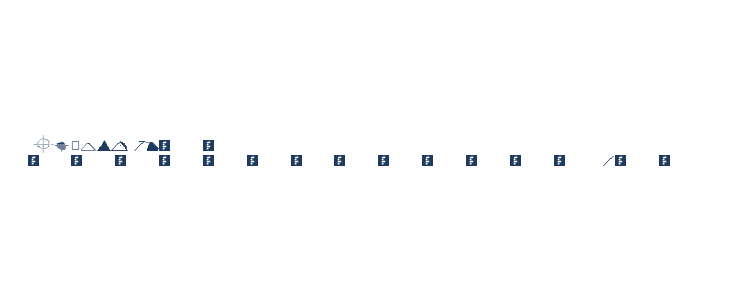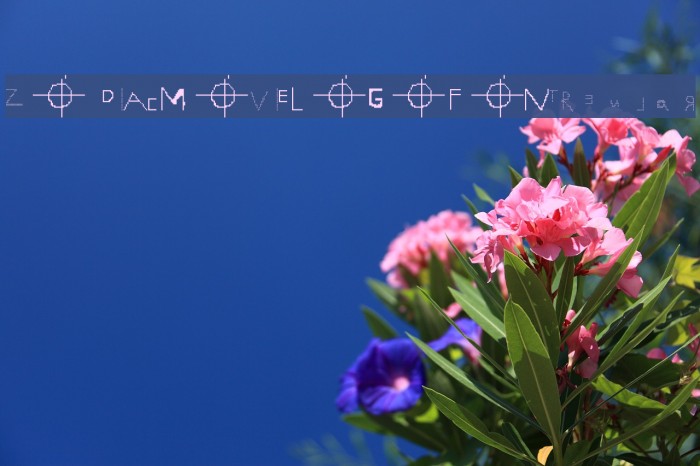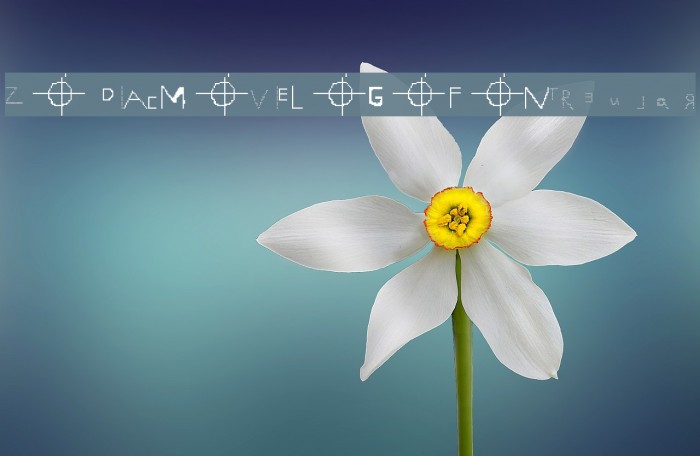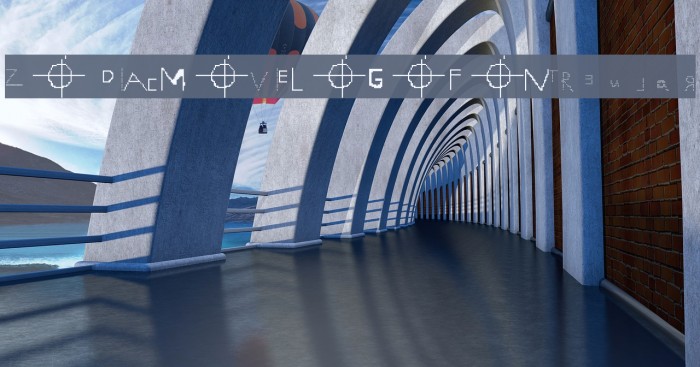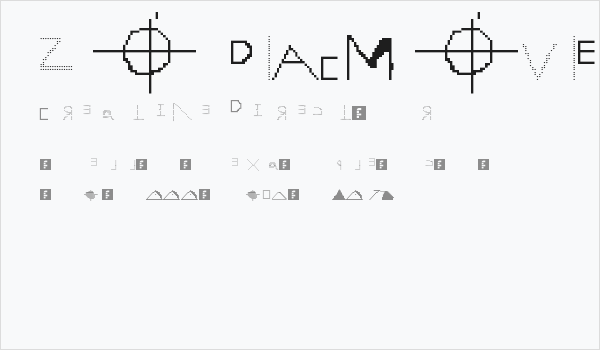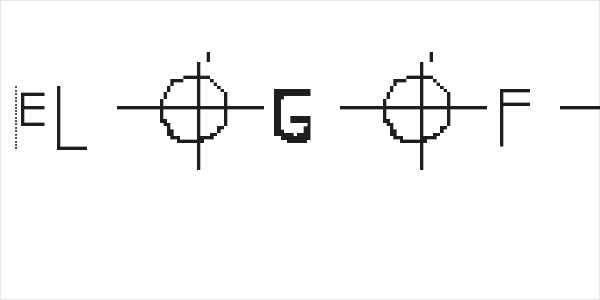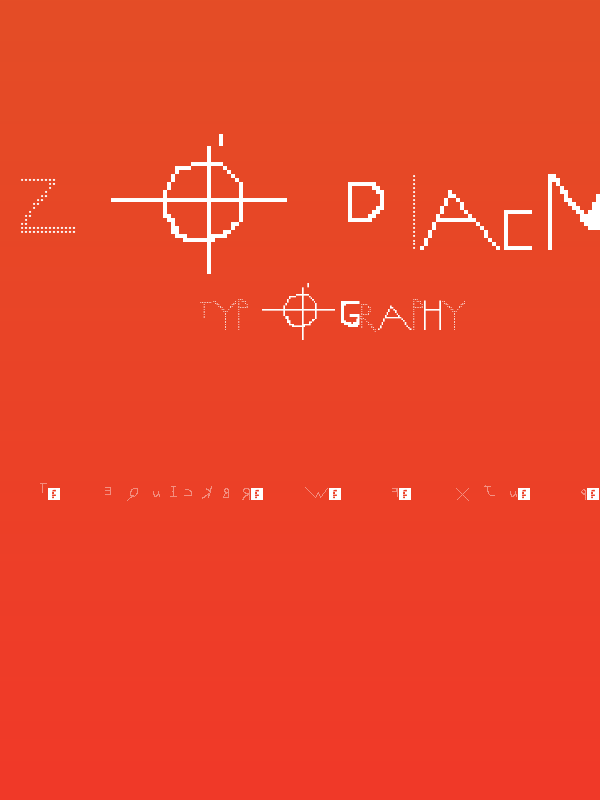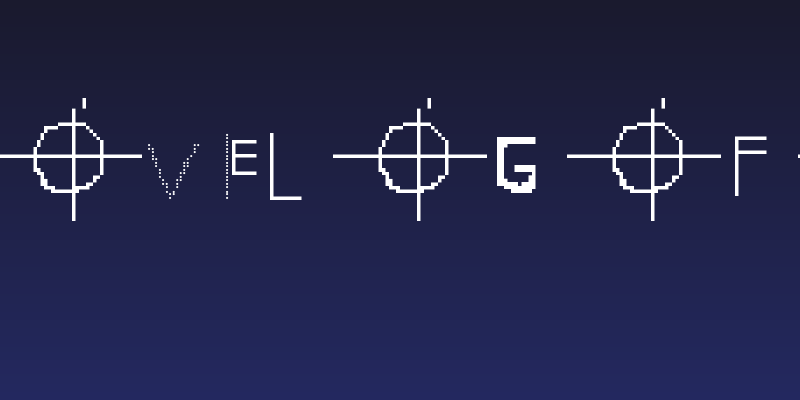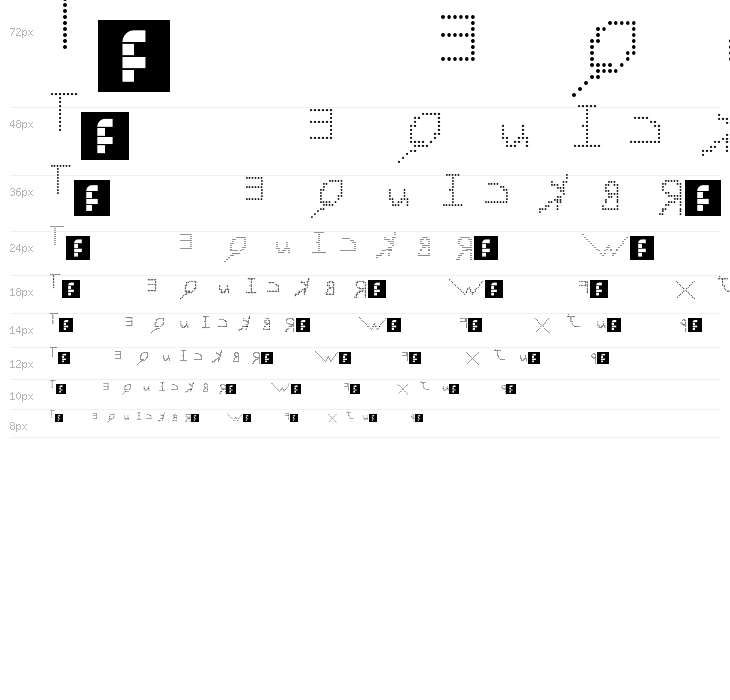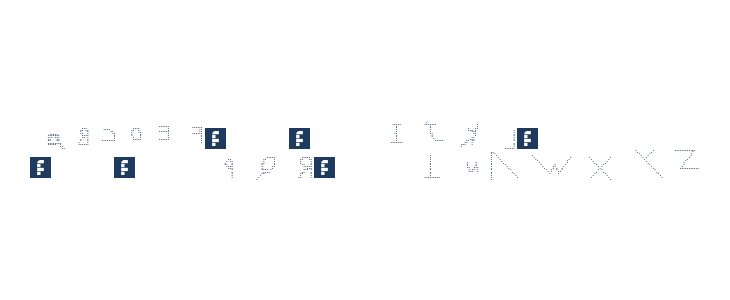
ZODIAC MOVIE LOGO FONT Regular Font
ZODIAC MOVIE LOGO FONT Regular Description
This font features a unique and eclectic style, combining elements of pixel art and geometric shapes. The uppercase letters are bold and distinct, with some characters incorporating intricate patterns or symbols, such as the crosshair in the letter 'O'. The lowercase letters are more subtle, with a dotted or dashed appearance that adds a sense of mystery and intrigue. Numbers and special characters follow the same theme, with some characters resembling abstract shapes or symbols. The overall design is reminiscent of cryptic codes or puzzles, making it ideal for projects that require a sense of enigma or complexity.
| Overall Style | Modern, Cryptic |
| Use Case | Logos, Posters, Themed Events |
| Proposed Projects | Ideal for movie posters, mystery novels, escape room branding, or any project needing a cryptic and enigmatic feel. |